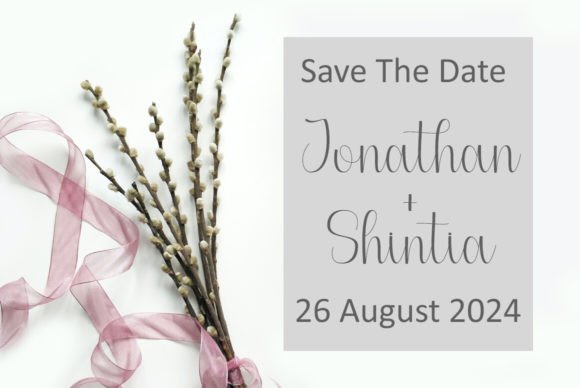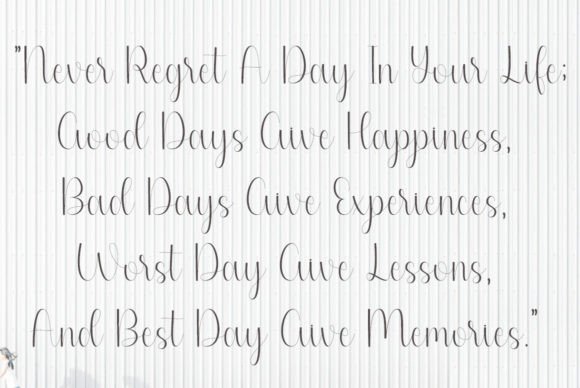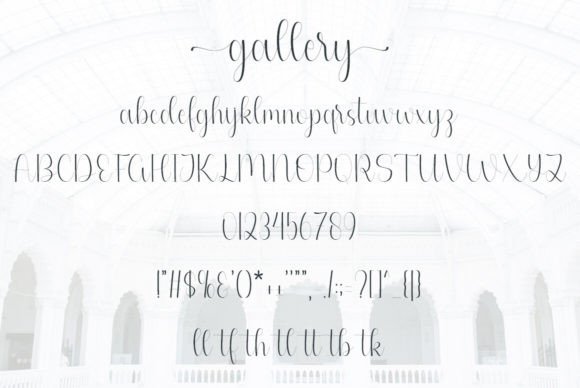
Welcome to the World of Gallery Font: Elevate Your Designs with Refined Elegance
Have you ever been in the middle of a design project, pouring your heart and soul into it, only to hit a roadblock when it comes to choosing the perfect font? I certainly have. It was during one of those moments, working on a wedding invitation design, that I stumbled upon the beautiful ‘Gallery’ font. It was as if the delicate, handwritten style whispered to me, “I’ve got this.” And just like that, my design went from ordinary to extraordinary.
The Essence of Gallery Font
Gallery is more than just a font; it’s an embodiment of refined elegance interpreted in handwritten style. It’s perfect for adding a touch of sophistication to wedding invites, thank you notes, greeting cards, or even quotes. But its utility doesn’t stop there. Imagine using Gallery in a sports or professional setup – logos, business cards, or signage – and watch how it imparts personality, creating attention-grabbing communication.
What I Love About Gallery Font
- ✨ Delicate and Refined: Gallery adds an extra layer of delicacy to any text, making it perfect for projects that require a touch of elegance.
- ✅ Versatile: Whether you’re working on a personal project or a professional one, Gallery seamlessly adapts to your needs.
While Gallery is an amazing font, there are a few things to keep in mind:
- ⚠️ Limited Use in Bold Text: Gallery is primarily designed for lighter weights, so it might not be the best choice for bold text or headings.
A Practical Guide to Using Gallery Font
The Backstory of Gallery Font
Gallery was designed with the intention of creating a font that embodies refined elegance and sophistication. The designer aimed to craft a font that would add a touch of personality to any project, whether personal or professional. With its delicate, handwritten style, Gallery is sure to become a favorite among designers and crafters alike.
| Font Name | Gallery Font |
| Author | Hardiboy Design |
| What is the best use for Gallery font? | Gallery is perfect for projects that require a touch of elegance, such as wedding invitations, thank you notes, or professional branding. |
| Is Gallery font suitable for body text? | While Gallery is beautiful, it’s primarily designed for headings or titles. For body text, you might want to choose a more readable font. |
| Does Gallery font support OpenType features? | Yes, Gallery supports OpenType features, including glyphs and alternates. |
Gallery font is a versatile and elegant addition to any design project. With its delicate, handwritten style and support for OpenType features, it’s perfect for adding a touch of sophistication to your work. Give Gallery a try and experience the magic of refined elegance in your designs!